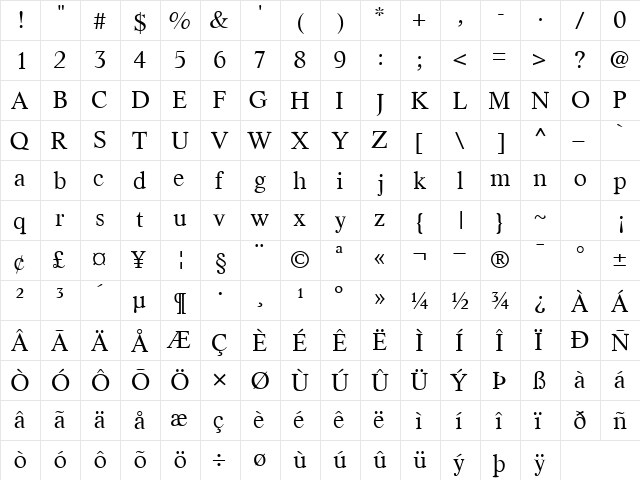
ResourceSSK Regular
Design Context for ResourceSSK Typeface
ResourceSSK takes a measured approach to typography — its balanced proportions and neutral character make it a reliable workhorse for both digital and print work.